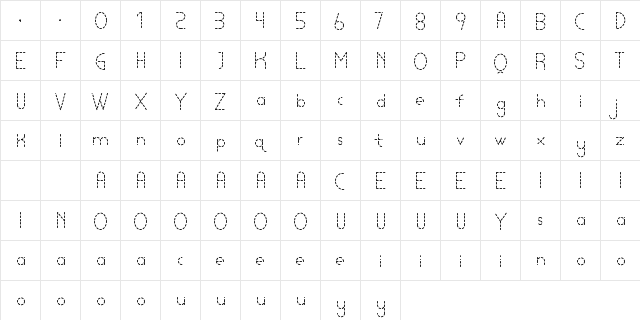
Lamborgini Light Dash Regular
| Designer | Ikrar Bey Khubaib |
Design Context for Lamborgini Light Dash Typeface
Lamborgini Light Dash offers clean, dependable letterforms without strong stylistic allegiance, making it a practical choice for designers who need flexibility. Its slender proportions lend an understated elegance to any composition.